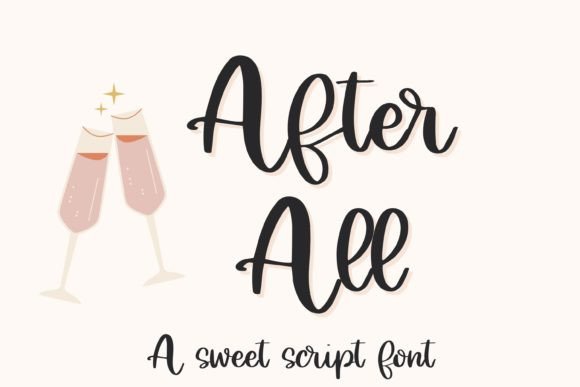
Looking for a script font that exudes elegance and sophistication? Look no further than After All, the exquisite script font created by designingdigitals.
With its flowing curves and graceful letterforms, After All brings a touch of class to any design project. Whether you're designing invitations, creating a brand identity, or working on any project that needs a touch of sophistication, this font is sure to elevate your work to the next level.
One of the key features of After All is its PUA encoding, which allows you to effortlessly access all glyphs and swashes. This means you can add even more flair to your designs with ease.
If you're looking for a font that is both stylish and functional, After All is the perfect choice. Its keyword, ExquisiteScript, perfectly captures the essence of what this font has to offer.